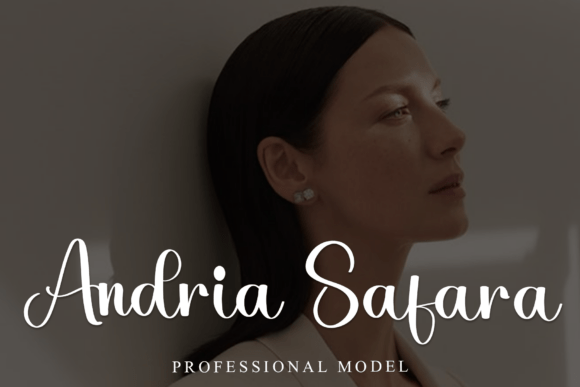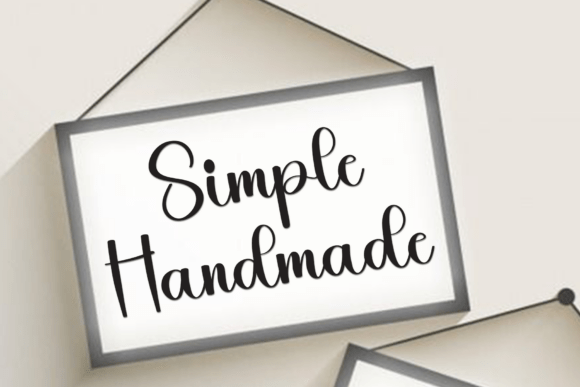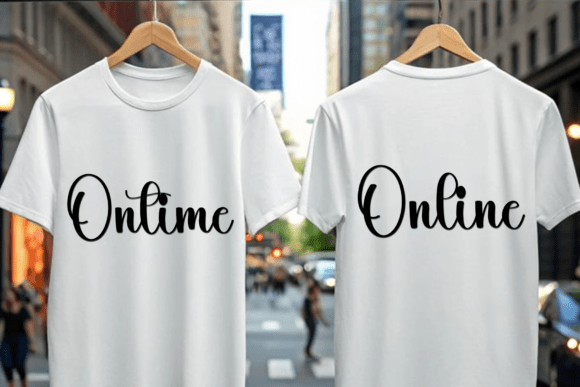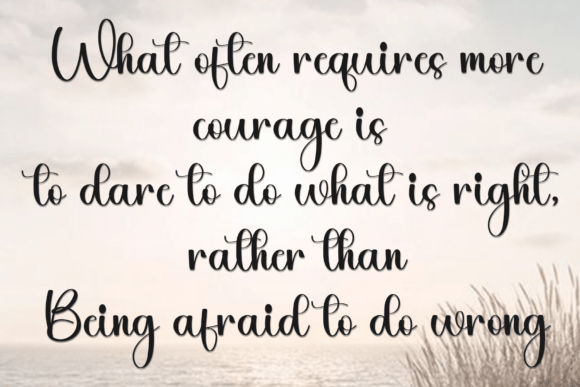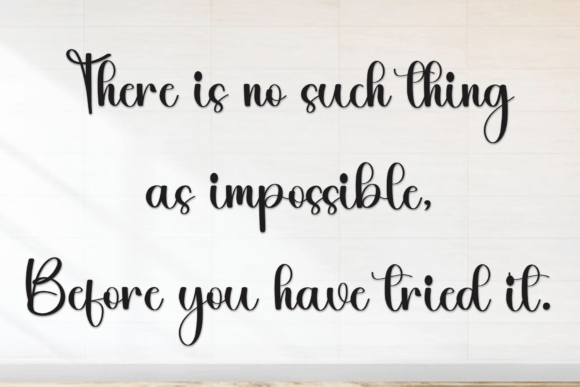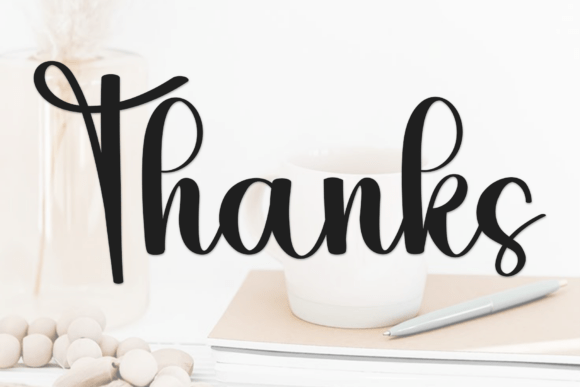
Doodle Font: Adding a Touch of Whimsy to Your Designs
Are you looking for a font that can add a dash of personality to your designs? Look no further than the Doodle Font. This casual and creative font is perfect for designers and crafters who want to infuse their work with a sense of warmth and friendliness. In this article, we’ll take a closer look at the Doodle Font, its features, and how you can use it to elevate your designs.
The Characteristics of Doodle Font
The Doodle Font is characterized by its round, playful strokes that create a relaxed and approachable feel. The font’s charming, hand-drawn aesthetic adds a fun and unique touch to any design, making it perfect for personal projects, invitations, and social media graphics. The font’s casual vibe makes it an excellent choice for designers who want to create a sense of warmth and connection with their audience.
What Makes Doodle Font Special?
Uses of Doodle Font
The Doodle Font is incredibly versatile and can be used in a wide range of design projects, including:
- Personal projects: Use the Doodle Font to add a personal touch to your designs, making them more relatable and engaging.
- Invitations: The font’s playful and whimsical nature makes it perfect for creating invitations that are both fun and elegant.
- Social media graphics: The Doodle Font is ideal for creating social media graphics that are visually appealing and engaging.
- Crafting projects: The font’s hand-drawn aesthetic makes it a great choice for crafters who want to add a personal touch to their projects.
Benefits of Using Doodle Font
There are several benefits to using the Doodle Font in your designs, including:
- Unique and playful aesthetic: The Doodle Font adds a touch of whimsy to your designs, making them stand out from the crowd.
- Easy to read: The font’s round and playful strokes make it easy to read, even at smaller sizes.
Tips for Using Doodle Font
Here are some tips for using the Doodle Font in your designs:
- Experiment with different colors: The Doodle Font looks great in a variety of colors, so don’t be afraid to experiment and find the perfect hue for your design.
- Pair with other fonts: The Doodle Font pairs well with other fonts, so try combining it with a sans-serif font for added contrast.
- Use it for headings: The Doodle Font is perfect for headings and titles, adding a touch of personality to your design.
- Keep it simple: Don’t overcomplicate your design – the Doodle Font is perfect for simple, yet effective designs.
The Doodle Font is a versatile and playful font that can add a touch of whimsy to your designs. Its unique and hand-drawn aesthetic makes it perfect for personal projects, invitations, and social media graphics. With its standard PUA Encoded glyphs, the font is compatible with a wide range of design software, making it easy to use and flexible. Whether you’re a designer or crafter, the Doodle Font is a great choice for anyone looking to add a dash of personality to their work.